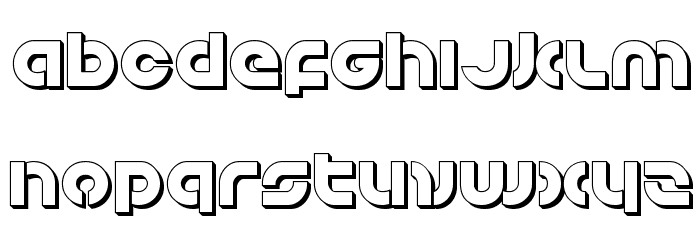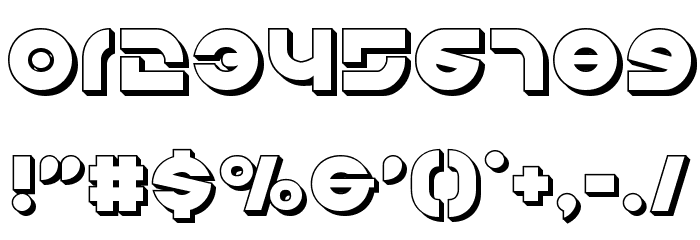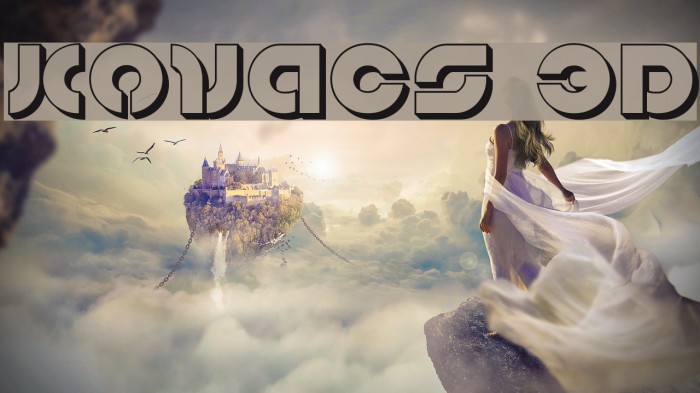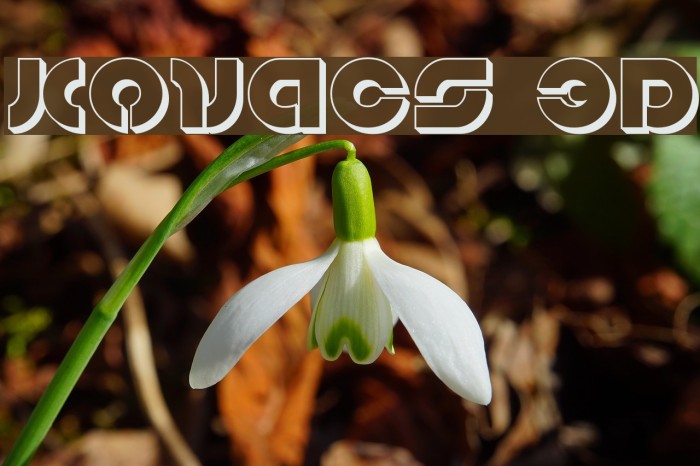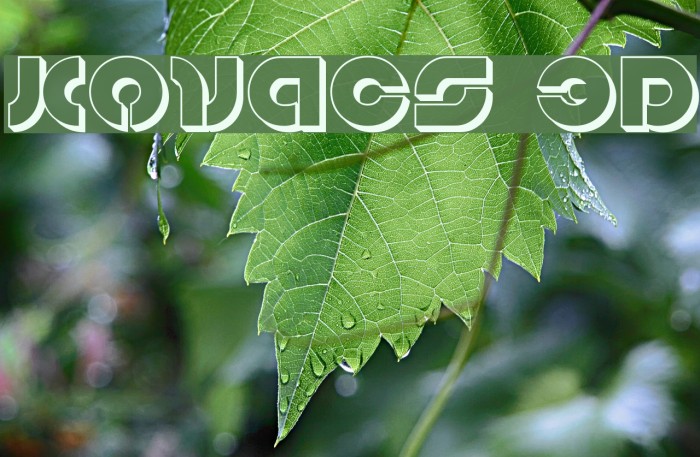
Kovacs 3D Font
This font features a bold, three-dimensional appearance with a futuristic and geometric design. The characters are outlined with a shadow effect, giving them a distinct depth and a modern, tech-inspired look. The font maintains a consistent thickness throughout each character, enhancing its bold and impactful presence. The rounded edges and smooth curves contribute to its sleek and polished aesthetic, making it suitable for contemporary design projects. The numerals and special characters are designed with the same attention to detail, ensuring uniformity across all glyphs.
A bold, 3D geometric font with a futuristic and tech-inspired design.
- Proposed Projects: Ideal for technology branding, sci-fi posters, video game titles, and modern digital interfaces.